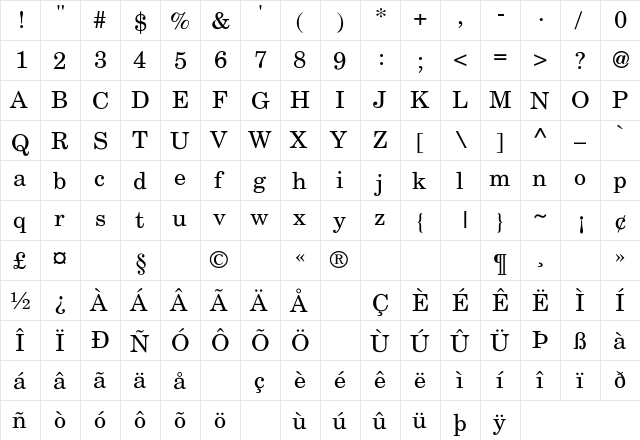
NewAmericaSchool-Roman Regular
Design Context for NewAmericaSchool-Roman Typeface
NewAmericaSchool-Roman takes a measured approach to typography — its balanced proportions and neutral character make it a reliable workhorse for both digital and print work.
Pro Tip: Use NewAmericaSchool-Roman in both headline and body roles to test its range before committing to a single application.